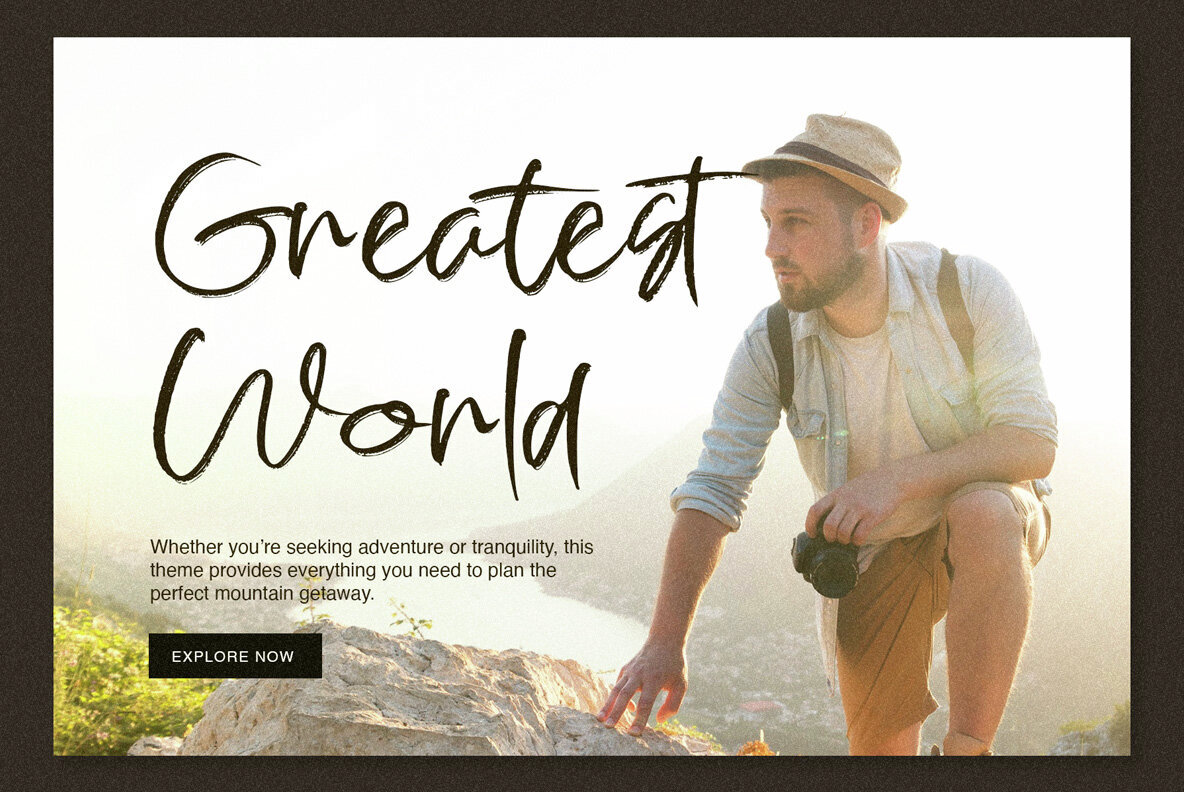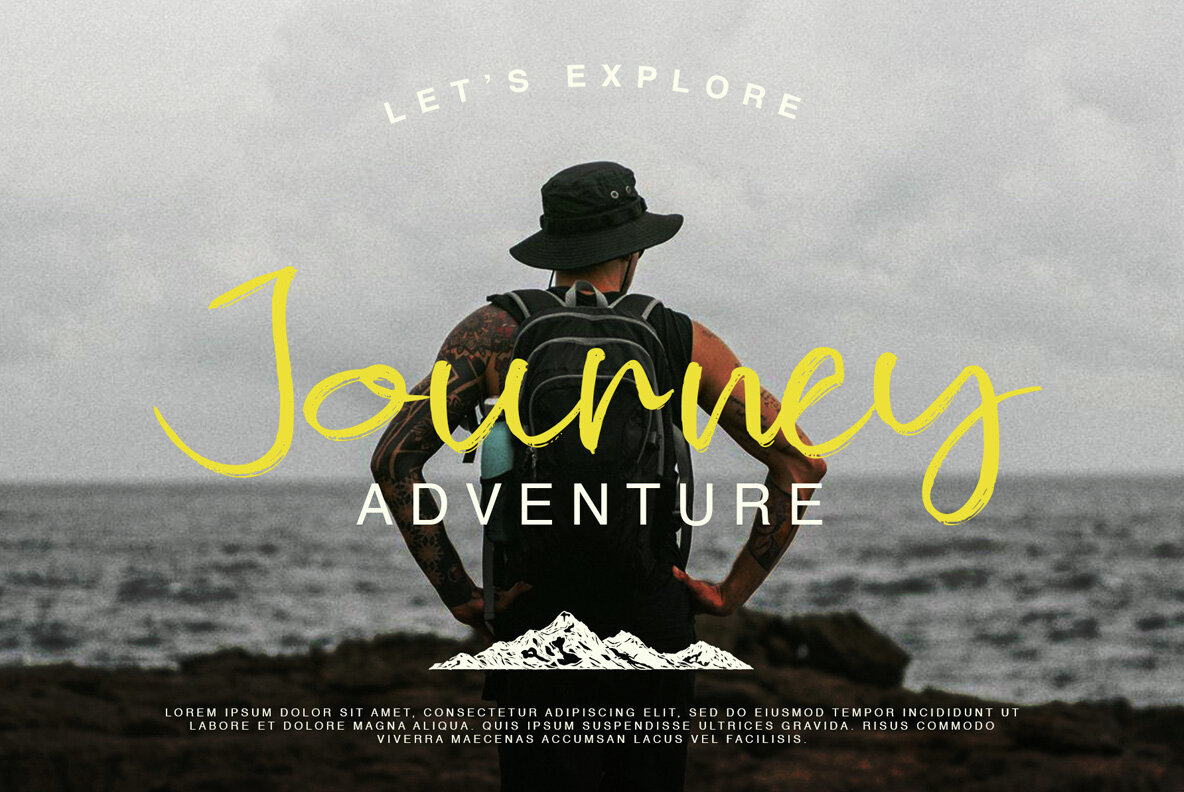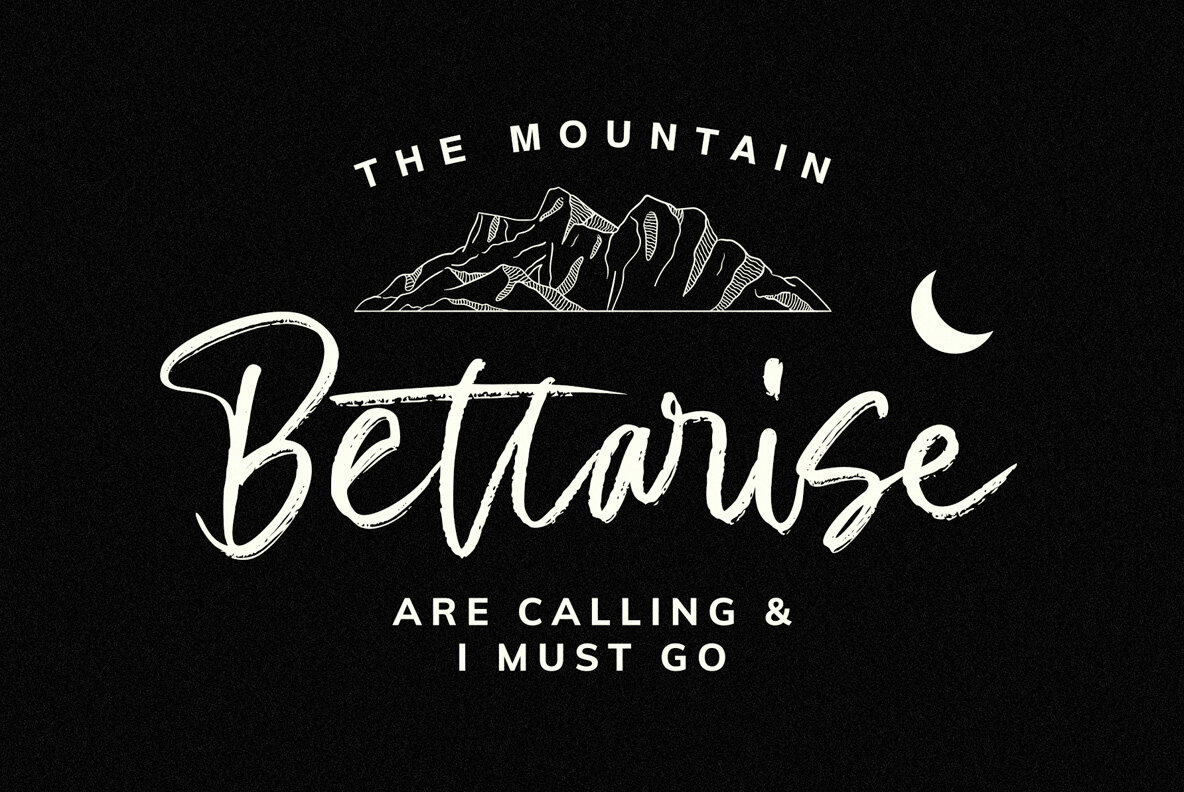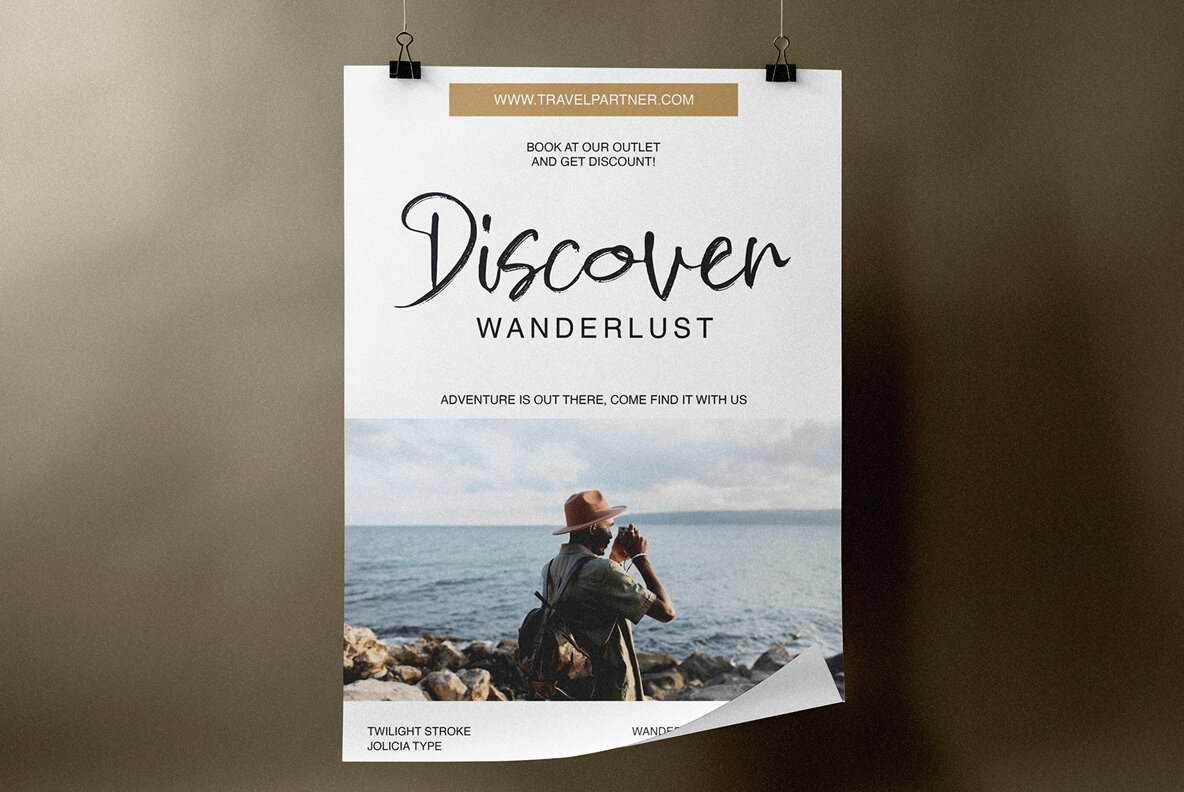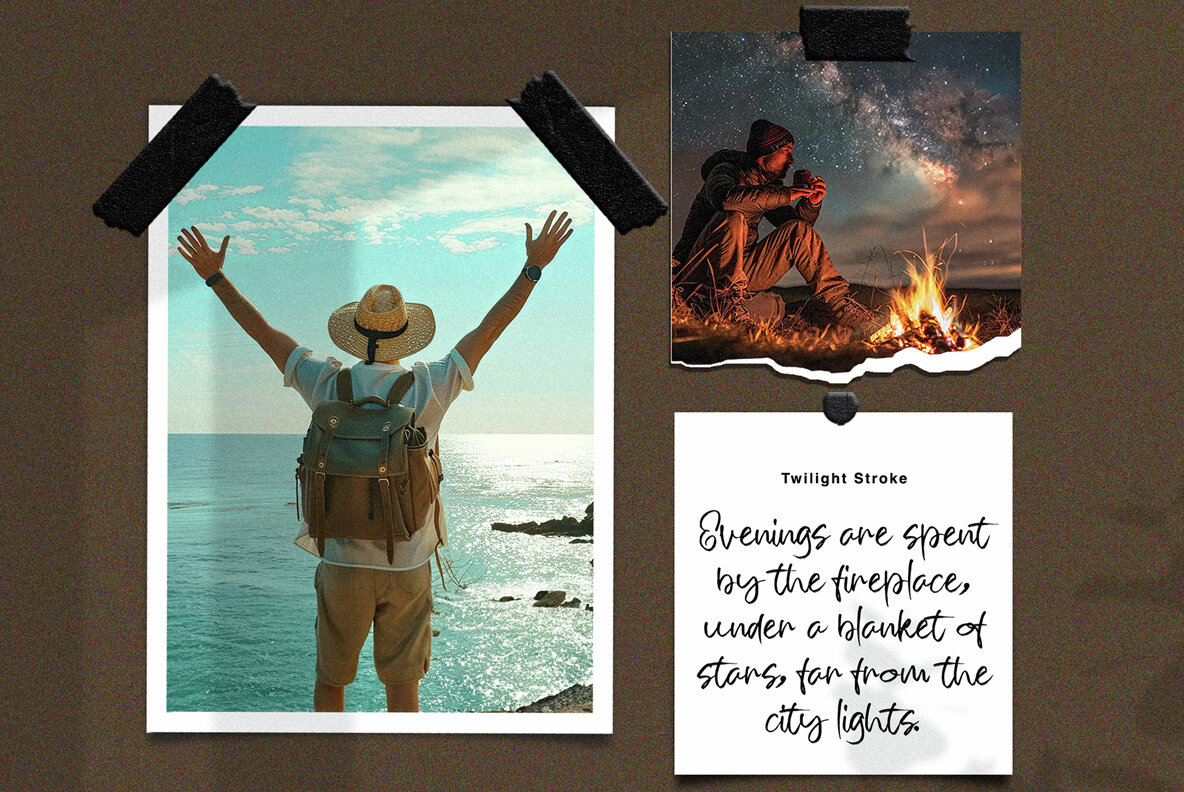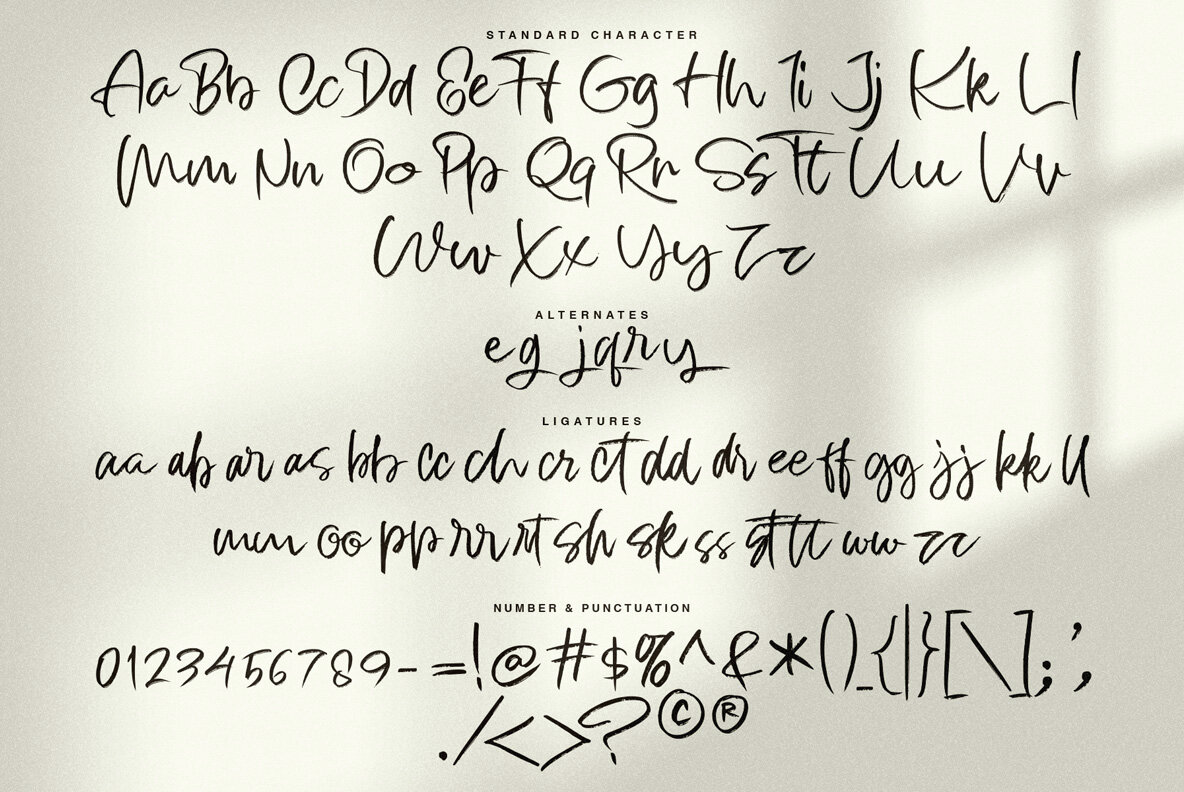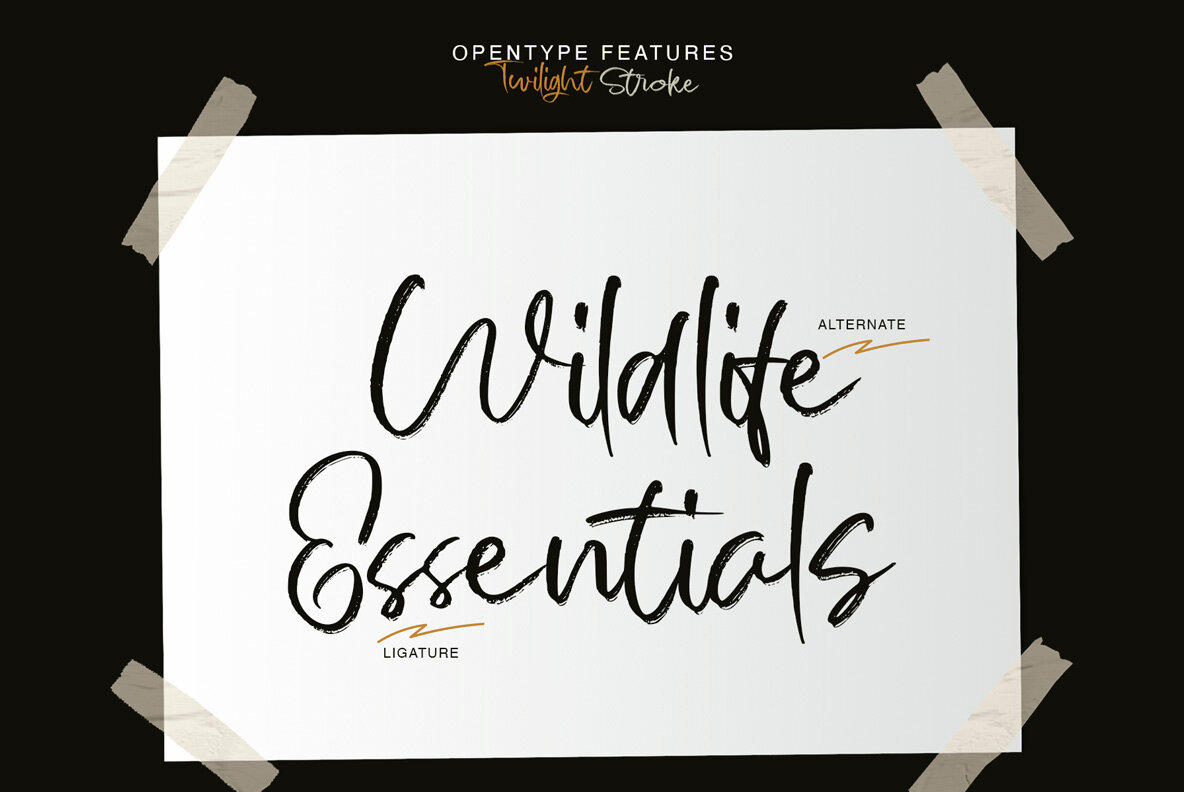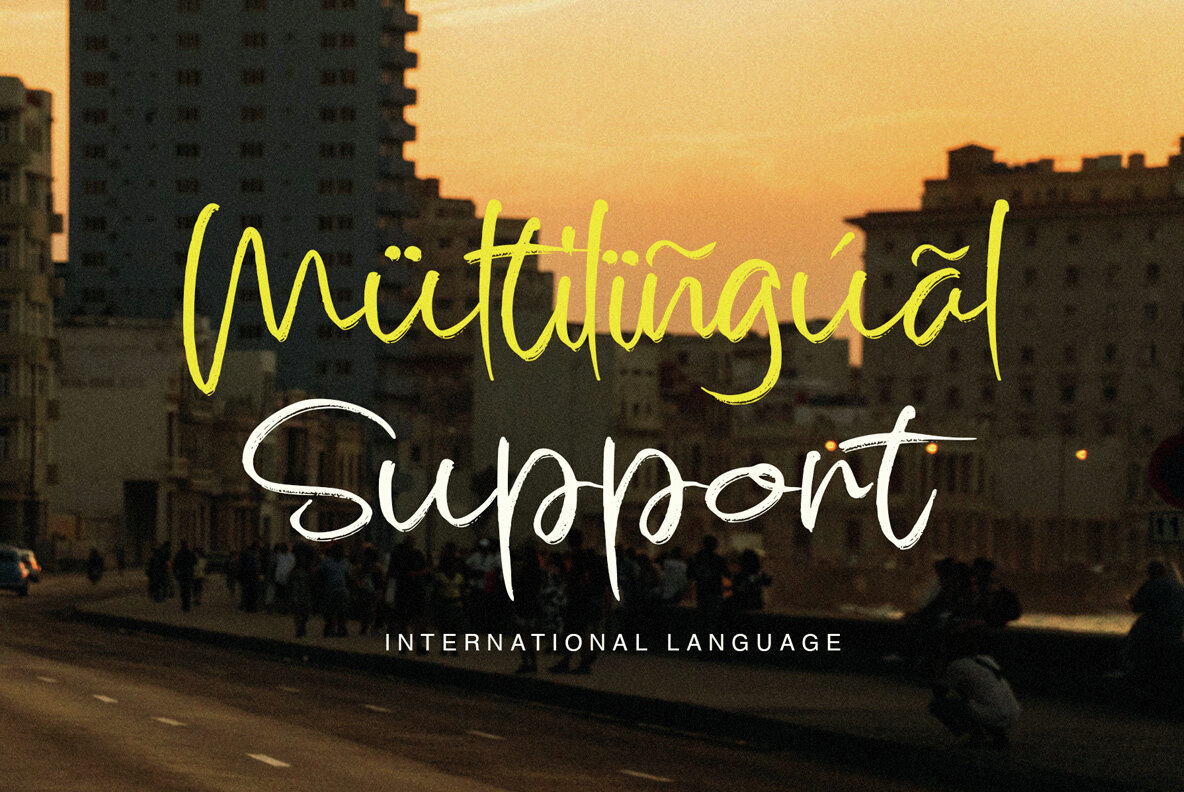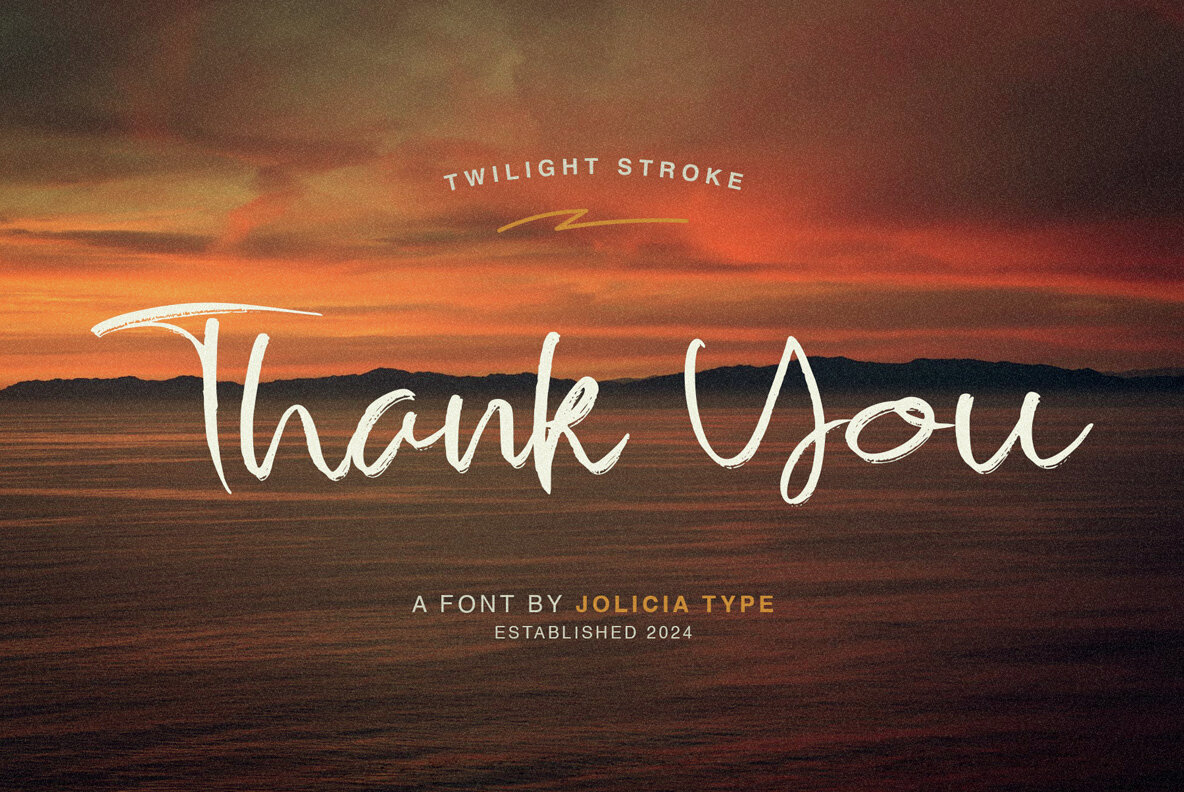
Twilight Stroke
Twilight Stroke is a script brush font characterized by dynamic and energetic strokes. Each letter features flowing and bold details, striking a balance between artistic freedom and visual strength. This font is ideal for projects that require an expressive and daring touch, making it perfect for branding, packaging, and social media designs.
Designed to make a statement, Twilight Stroke brings a bold and creative edge to any piece. Its robust strokes and fluidity enhance the visual appeal, ensuring your designs stand out. Whether you're crafting a new brand identity or adding flair to your social media posts, this font infuses creativity and strength into your work.